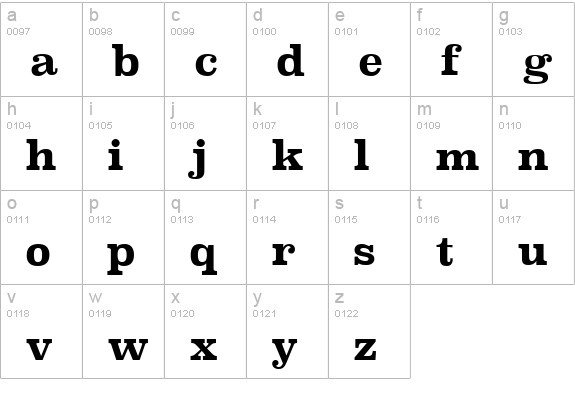
Superclarendon Rg Bold is a strong, high-contrast variant in the Superclarendon typeface family \xE2\x80\x94 well suited to headlines, attention-grabbing titles, and strong calls-to-action.
Superclarendon Rg Bold is a striking and versatile typeface that exudes confidence and modernity. Its bold weight commands attention while maintaining a sense of elegance and sophistication. The sturdy serifs and clean lines give this font a timeless appeal that makes it suitable for a wide range of design projects. What sets Superclarendon Rg Bold apart is not just its visual impact, but also the fact that it is available for free download at FontsMarket.com. Designers and creatives can easily access this high-quality font to elevate their projects without any cost barriers. Whether used for headlines, logos, posters, or any other design application, Superclarendon Rg Bold is sure to make a bold statement and leave a lasting impression.